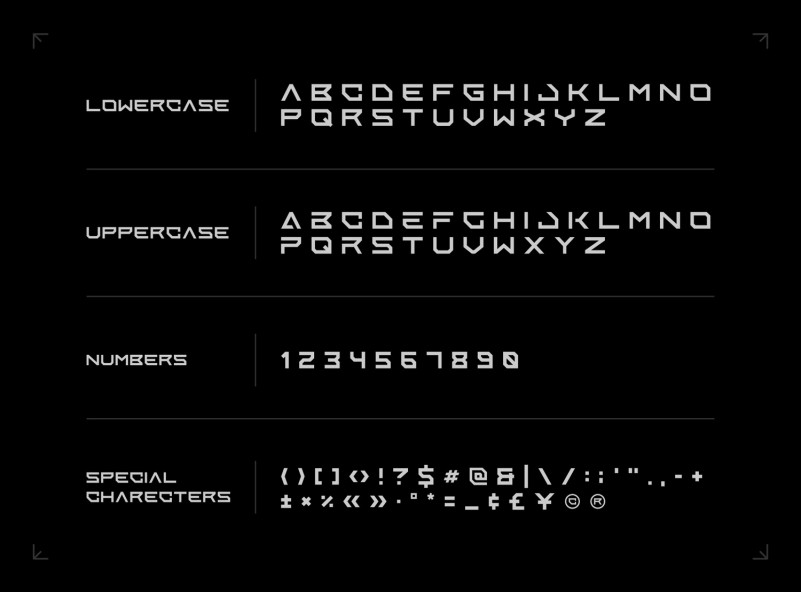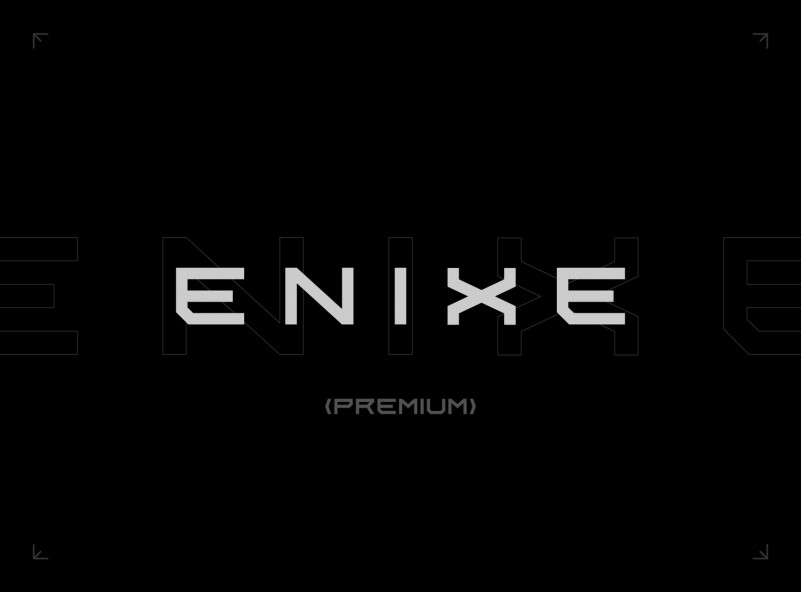
Enixe Display Font
This is a futuristic typeface with high tech look. It includes uppercase letters, numbers and punctuation. Some letters also have alternate versions which you can toggle with caps lock. This font would be ideal for writing web designs, business cards, or pretty much anything else that requires a unique touch.